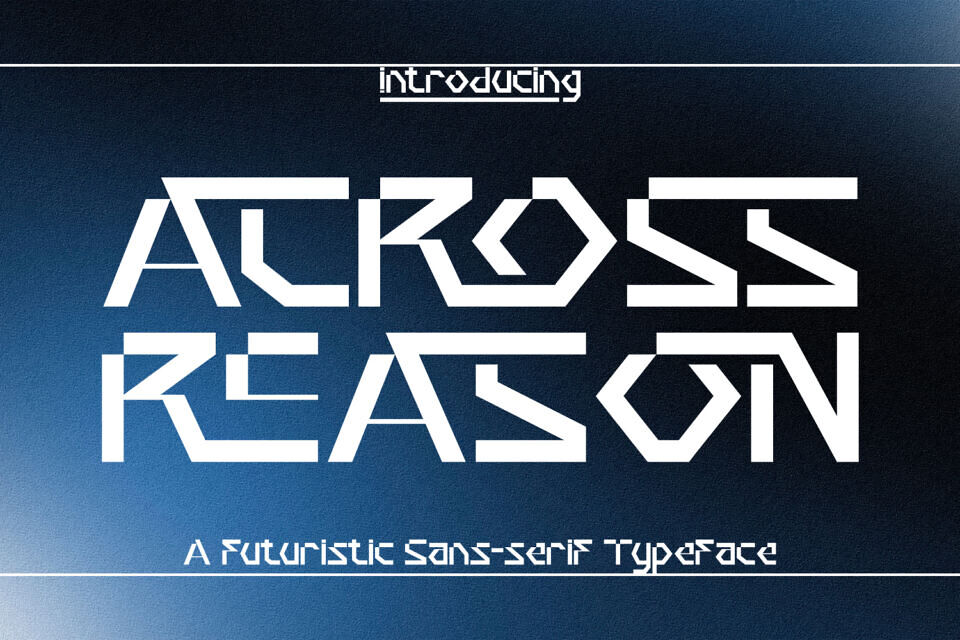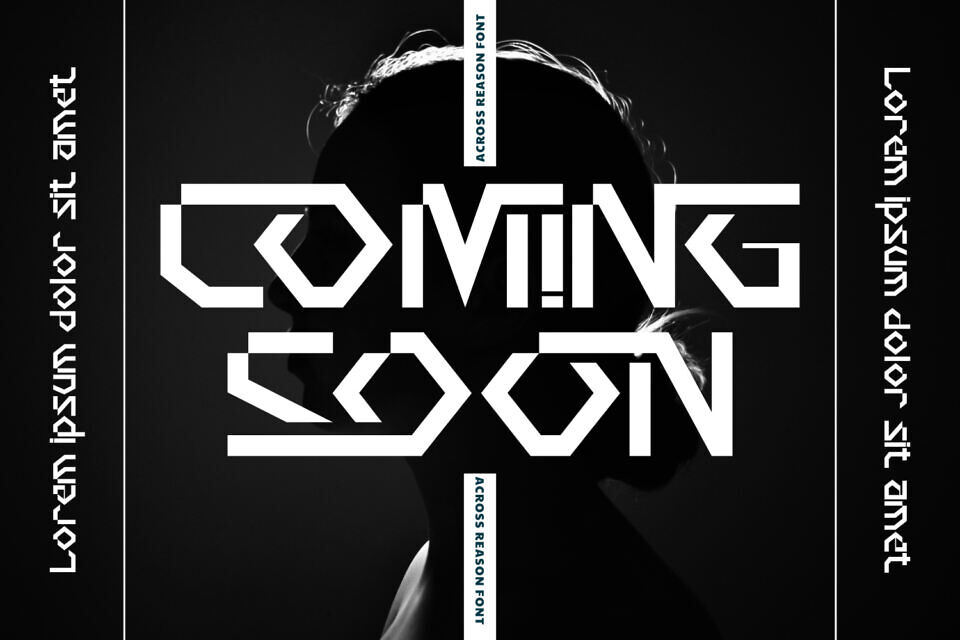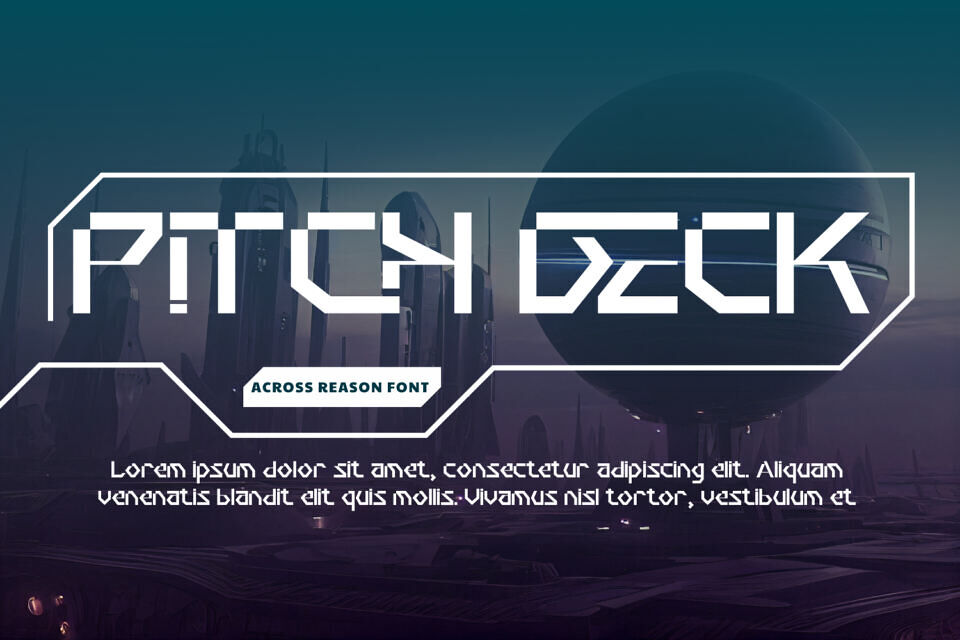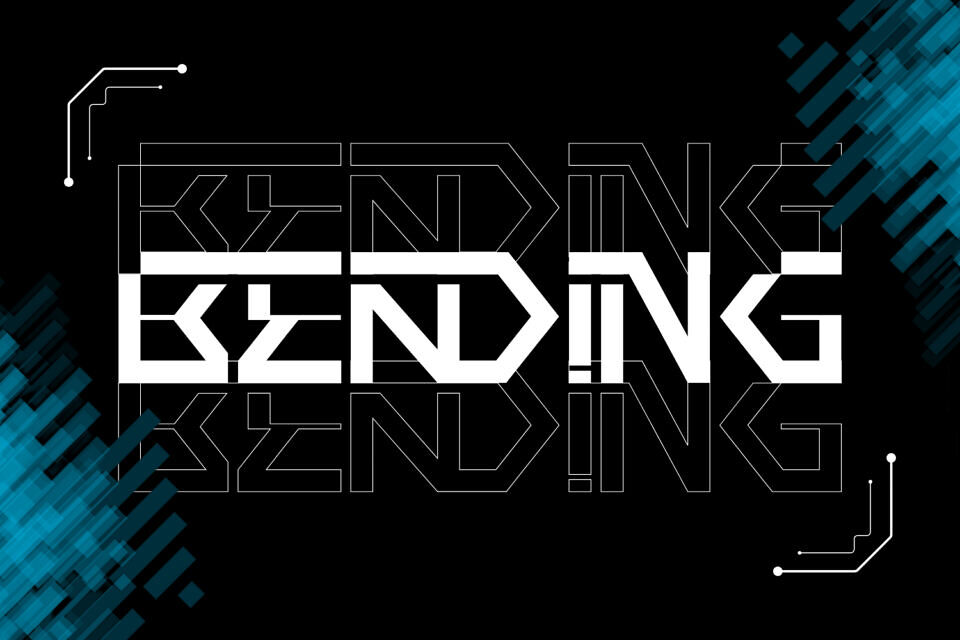
Across Reason Font
ACROSS REASON is a cutting-edge geometric display font crafted for bold, futuristic aesthetics. Inspired by science fiction, robotics, and electronic interfaces, every character in this typeface is constructed with angular precision and a modular logic. The letters are composed of sharp lines, unexpected cuts, and negative space, forming a cryptic yet readable visual language.
This font is ideal for sci-fi posters, techno music branding, esports logos, or any design that seeks a digital dystopia meets intelligent geometry feel.